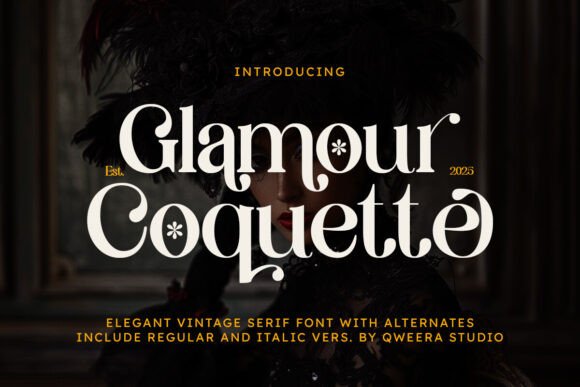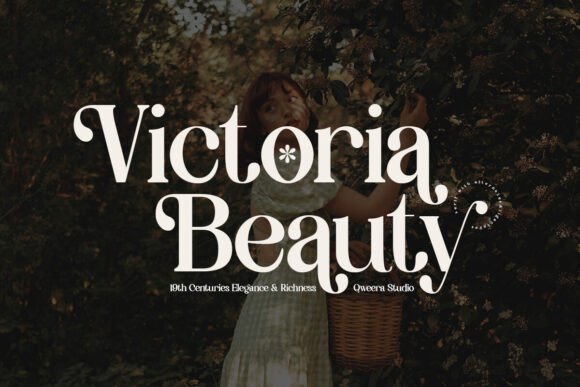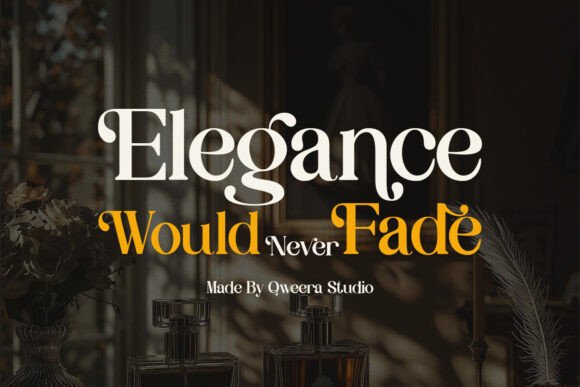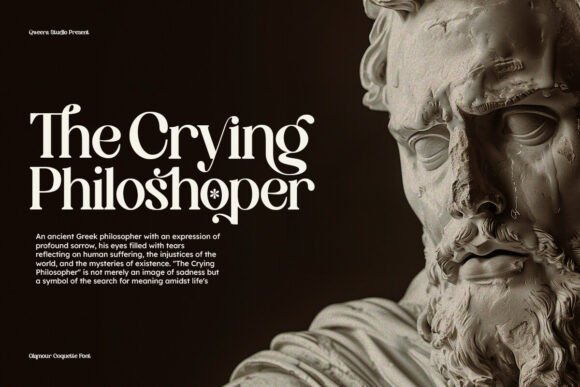
Glamour Coquette Font
About the Glamour Coquette Font
Unleash your creativity with Glamour Coquette Font, a versatile font perfect for a wide range of applications. Glamour Coquette – Elegant Vintage Serif Font for Timeless Designs
Glamour Coquette is more than just a font—it’s a sophisticated elegant vintage serif typeface that blends classic charm with modern refinement. Designed with stylish alternates and ligatures, this font offers flexibility for crafting high-end branding, editorial layouts, and luxurious print designs. Whether you’re working on posters, magazines, logos, or invitations, Glamour Coquette elevates your visuals with timeless beauty and graceful typography. Its ornate yet readable style makes it ideal for designers seeking a font that combines elegance, versatility, and premium aesthetics.
Where Classic Charm Meets Modern Elegance
Glamour Coquette stands out with its intricate details and stylish features, offering endless creative possibilities. Its versatility makes it ideal for projects that demand a luxurious and elegant touch, from vintage branding to editorial masterpieces. This font isn’t just a tool—it’s a statement of sophistication and artistic finesse.
Key Features
✔ Elegant Vintage Serif Design – Perfect for branding, posters, magazines, and print designs.
✔ Regular & Italic Versions – Versatile options for a variety of design needs.
✔ Stylish Alternates & Ligatures – Add a unique and creative touch to your designs.
✔ Timeless Beauty – Ensures your projects stand out with elegance and sophistication.
✔ Multilingual Support – Compatible with over 20 languages, including English, French, German, Spanish, and more.
Elevate Your Designs with Glamour Coquette
Glamour Coquette isn’t just a font—it’s a tool to transform your creative projects into luxurious, timeless masterpieces. Whether you’re designing for print, digital, or branding, this font ensures your work stands out with unmatched elegance and sophistication.
Glamour Coquette Font Usage Examples
Glamour Coquette Font Example